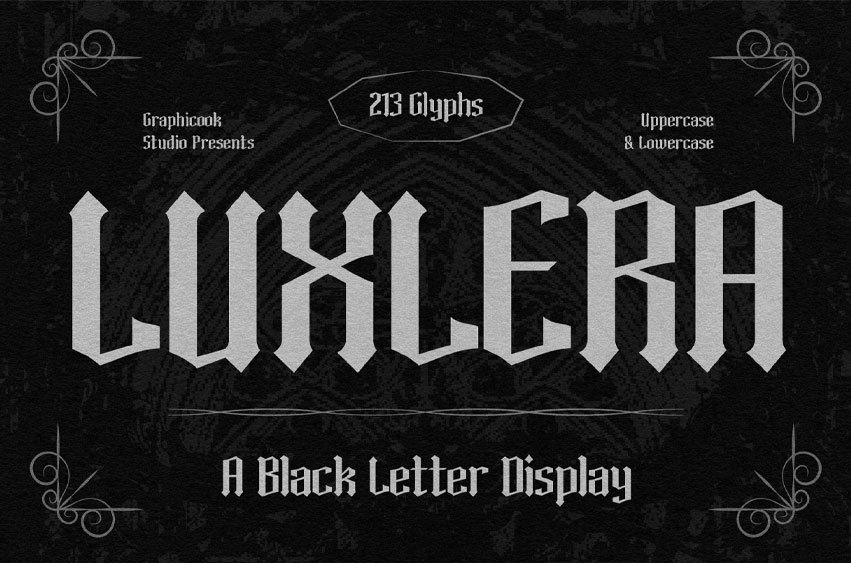
Luxlera Font is a blackletter typeface inspired by classic Old English and Gothic calligraphy, featuring sharp, dramatic letterforms rich in historical character. Perfect for metal, rock, and gothic band logos, as well as horror or mystery movie posters.
It is perfect for headlines, logotypes, magazines, packaging, quotes, movies, games, cover albums, book covers, and flyers. It’s a perfect solution for creating eye-catching designs that stand out in any context.